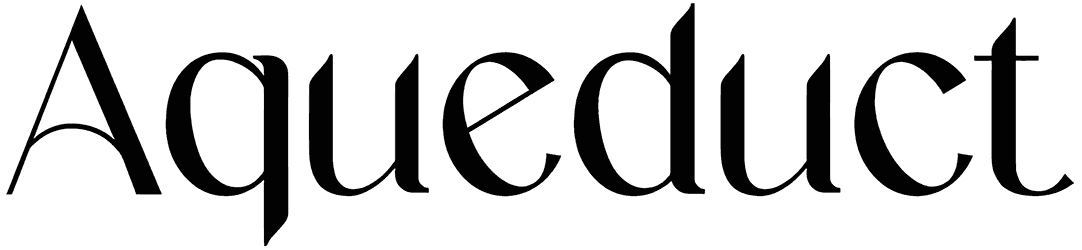
Aqueduct Font
The best thing about Aqueduct is that it lets you approach the audience in a fancy manner without having to make things complicated at all. Let’s just say there’s a charm in the simplicity of this serif font that can’t be overlooked.
Meanwhile, the innovative style of each character in this typography font makes sure to keep the viewers entertained visually. Just like that, the message in your text will be well received by the viewers before they know it.